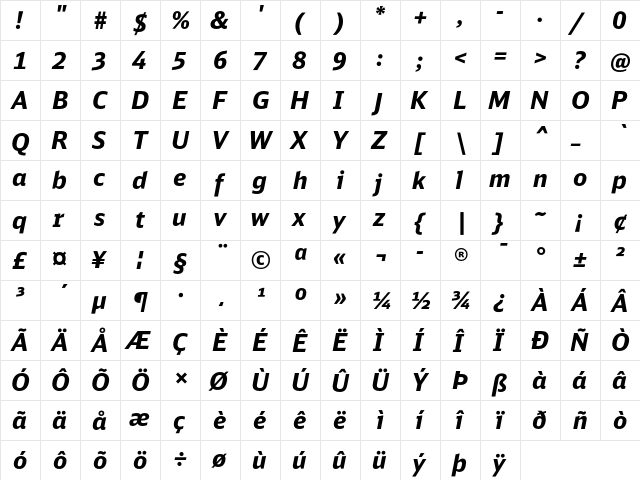
DB Sans Bold Italic
Design Context for DB Sans Typeface
DB Sans offers clean, dependable letterforms without strong stylistic allegiance, making it a practical choice for designers who need flexibility. The slanted form adds forward momentum and visual energy. The heavy weight commands attention and anchors typographic hierarchies.
Pro Tip: Use DB Sans for emphasis, pull quotes, and subheadings where its slanted energy can add rhythm to the layout.